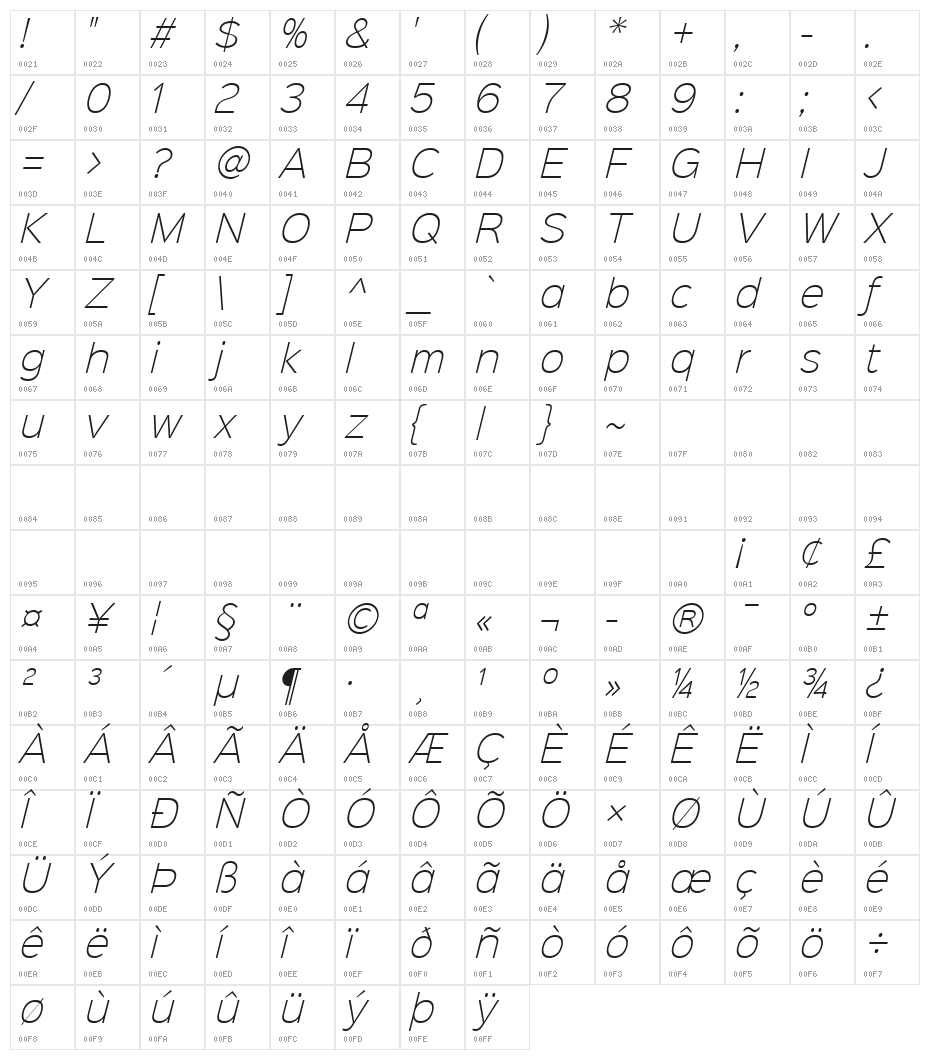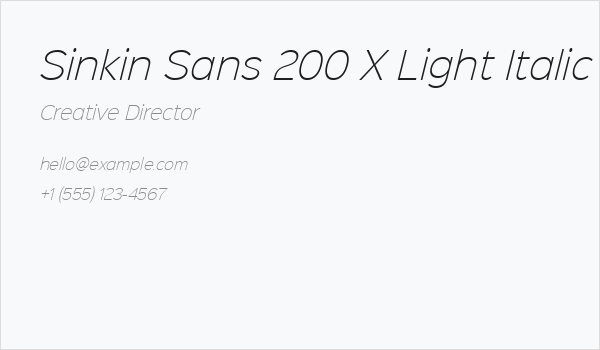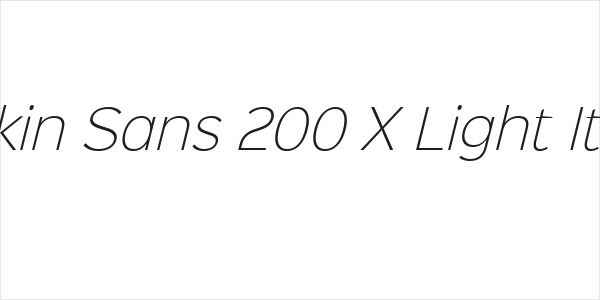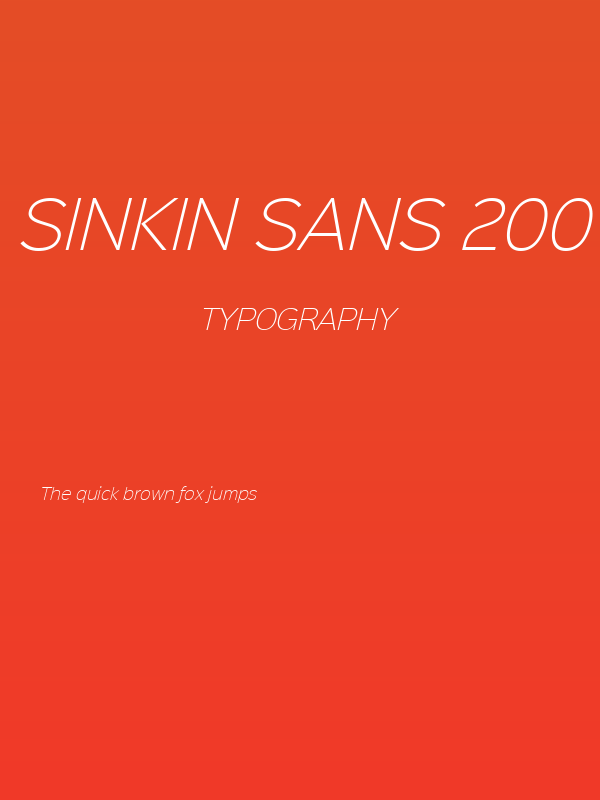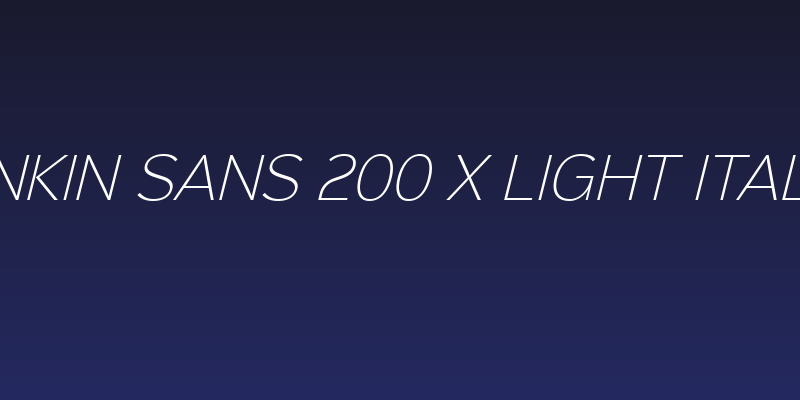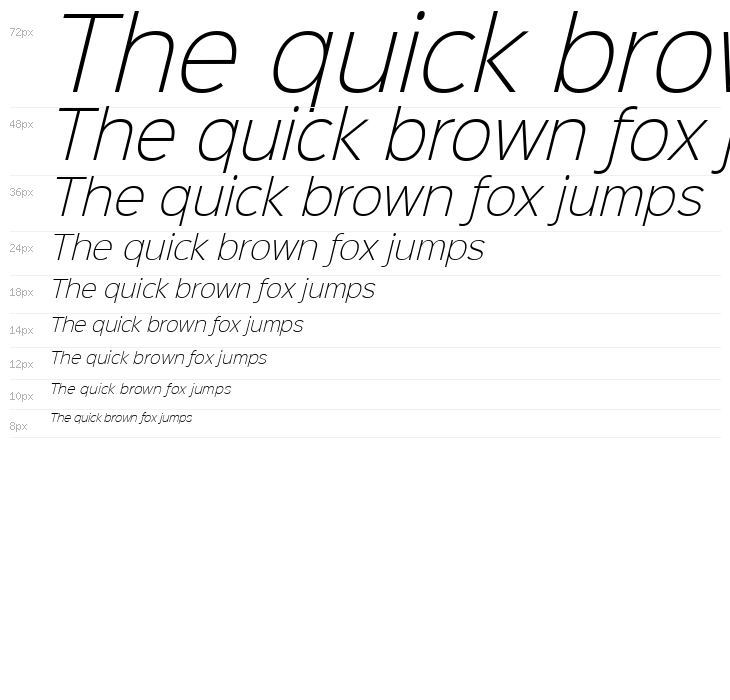
Sinkin Sans 200 X Light Italic Font
Sinkin Sans 200 X Light Italic Description
This font features a sleek, modern design with a light weight and italic style. The characters are elegantly crafted with a slight slant, giving it a dynamic and fluid appearance. The sans-serif design ensures a clean and uncluttered look, making it highly readable. The strokes are consistent and smooth, with a uniform thickness that adds to its contemporary feel. The character spacing is normal, providing a balanced and harmonious text flow. This font's minimalist aesthetic makes it versatile for various design applications.